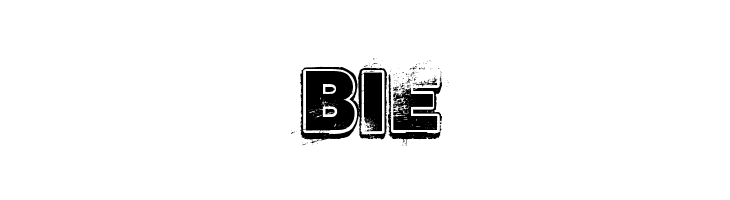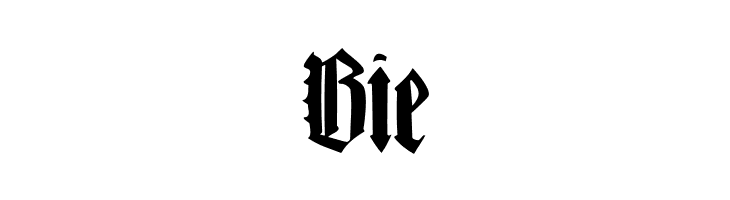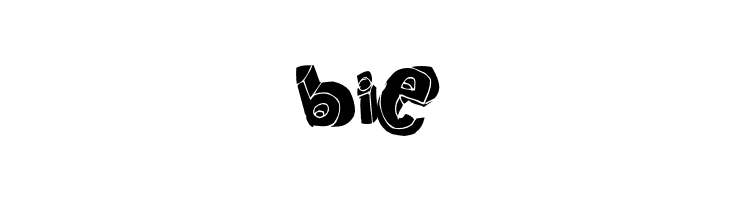
A light, slab serif font with a subtle blur effect, blending traditional and modern styles.
A playful, handwritten font with a casual and dynamic style.
A bold, playful font with thick, rounded, and slightly irregular characters.
A bold, italic, handwritten font with a playful and dynamic style.
A futuristic, segmented font with a digital, tech-inspired design.
Abstract symbol font with organic and geometric shapes in square icons.
A bold, geometric font with sharp angles and a modern, edgy style.
A geometric, digital-style font with angular, segmented lines for a futuristic look.
A charming, handwritten font with a playful and casual feel.
A bold, playful font with a vintage flair and strong visual impact.
A bold, playful font with a strong, condensed style.
A playful and whimsical cartoon-style font with detailed illustrations.
A futuristic, geometric font with angular, block-like letterforms.
A bold, geometric font with a futuristic and digital aesthetic.
A bold, italicized font with a futuristic and geometric design.
A bold, geometric font with a futuristic and digital style.
A bold, italic, futuristic font with sharp, angular design.
A futuristic, angular italic font with a tech-inspired aesthetic.
Casual handwritten script font.
A bold, decorative font with high contrast and artistic letterforms.
A modern decorative font with bold, looped serifs and artistic detailing.
A playful, casual handwritten font with dynamic strokes and irregular letterforms.
An elegant, flowing script font with intricate loops and swirls.
A bold, geometric font with Art Deco influences, perfect for vintage-inspired designs.
A playful, modern font with bold strokes and decorative circular embellishments.
A playful, hand-painted style font with bold, wavy strokes and a whimsical appearance.
A playful, hand-drawn font with a whimsical and artistic style.